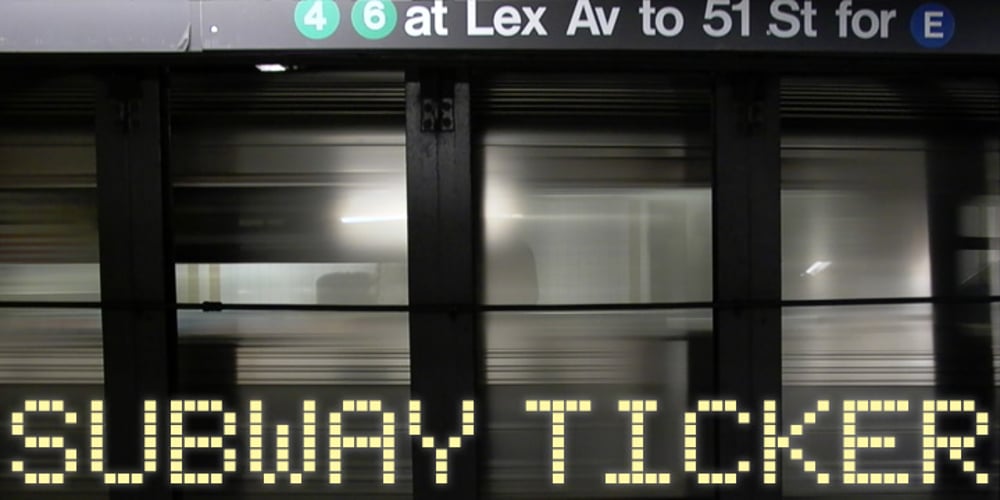
Subway Ticker
Subway Ticker font
Subway Ticker Font Family was designed by Keith Bates and published by K-Type. Subway Ticker contains 2 styles and family package options. Subway Ticker is based on a 5×7 grid, electronic display observed on a New York subway train in February 2005. Also included is a ‘Grid’ variation of the font that is slightly more spaced out and based upon a more precise grid structure.